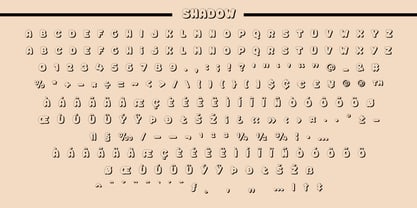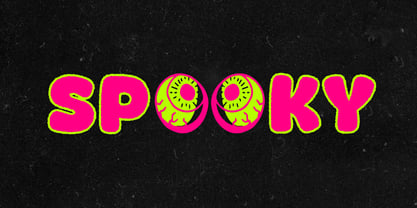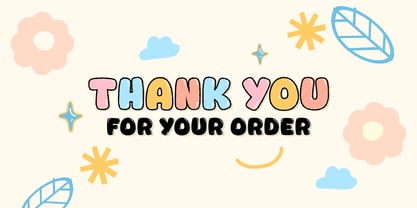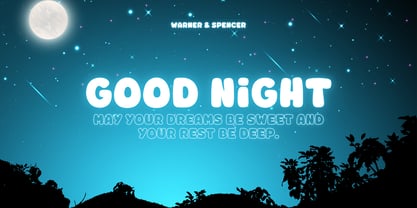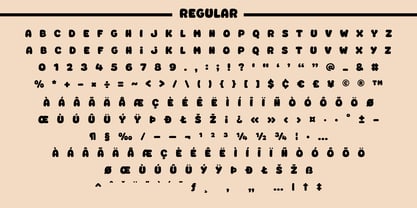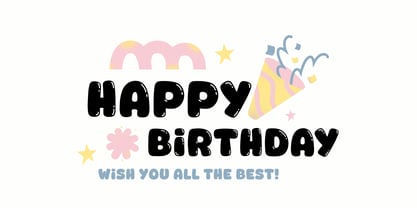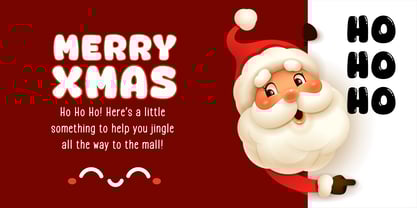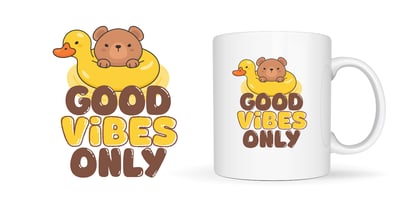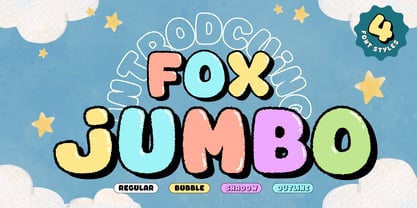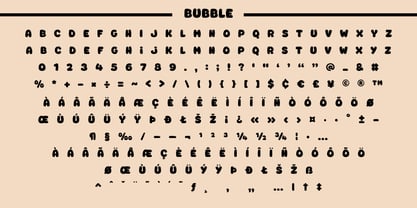
Fox Jumbo
by Fox7
The Fox Jumbo Font Family was designed by Rattana Rattanawan and published by Fox7. Fox Jumbo contains 4 styles and family package options.
🦊 Fox Jumbo Font Family: Unleash the Fun! Bring a delightful burst of fun and color to your designs with the Fox Jumbo Font Family! This incredibly charming and plump bubble font is perfect for any project that needs a playful, friendly, and attention-grabbing look. 🧡 What's Included? Fox Jumbo comes with 4 fantastic font styles to give you maximum creative flexibility: ✨ REGULAR: The classic, chunky, and irresistible filled bubble font. ✨ BUBBLE: A slightly textured version for an extra soft, bubbly feel. ✨ SHADOW: Adds a subtle, playful drop-shadow effect for depth and emphasis. ✨ OUTLINE: A clean, bold outline style that looks great on its own or layered over other styles. 🎨 Perfect For: ✨ Children’s books and educational materials ✨ T-shirt and merchandise designs ✨ Posters and greeting cards ✨ Social media graphics and banners ✨ Packaging and product labels ✨ Logo design for playful brands With its bold, rounded letters and bouncy shapes, Fox Jumbo adds a happy and cheerful vibe to any design. Mix and match the styles to create eye-catching titles, layered text effects, or colorful logo designs! 💕
Designers: Rattana Rattanawan
Publisher: Fox7
Foundry: Fox7
Design Owner: Fox7